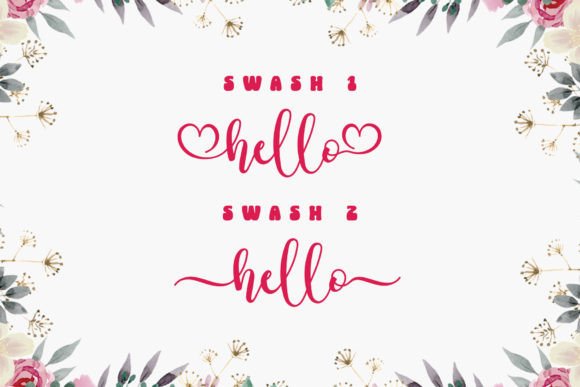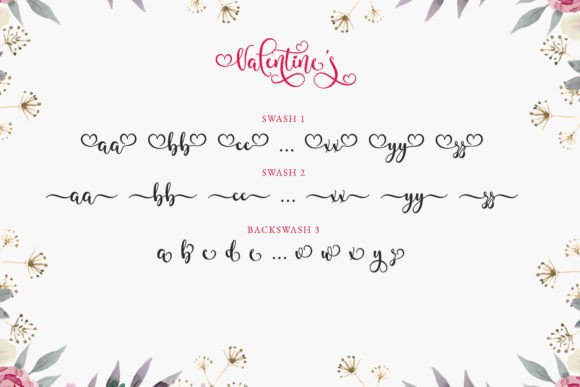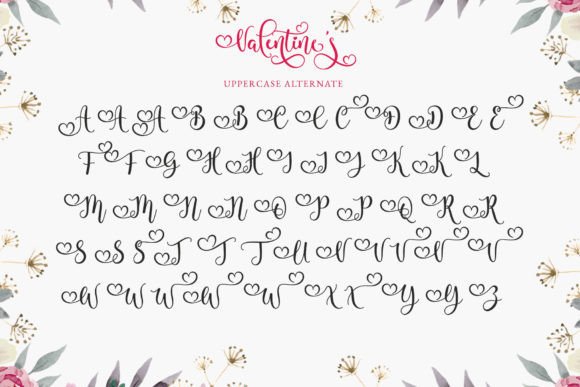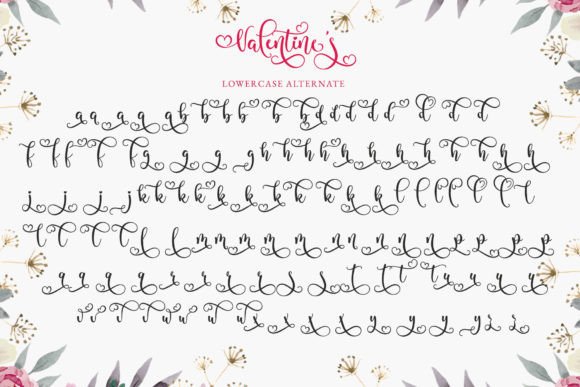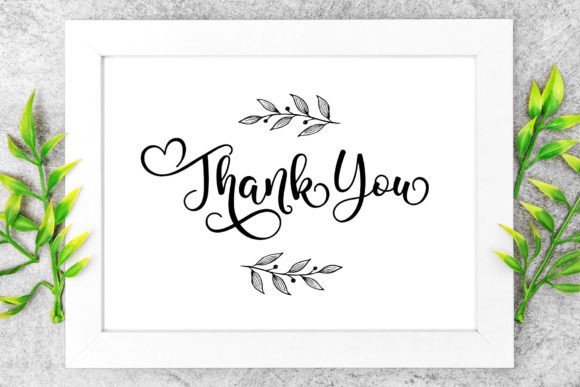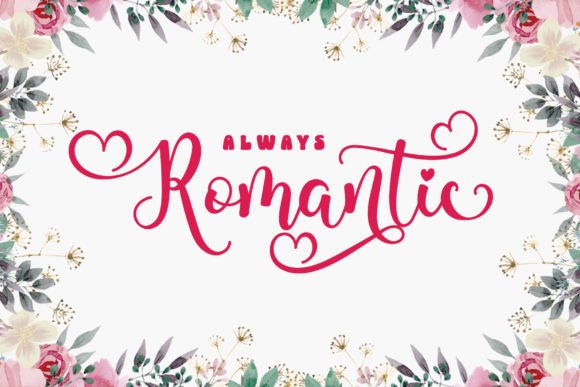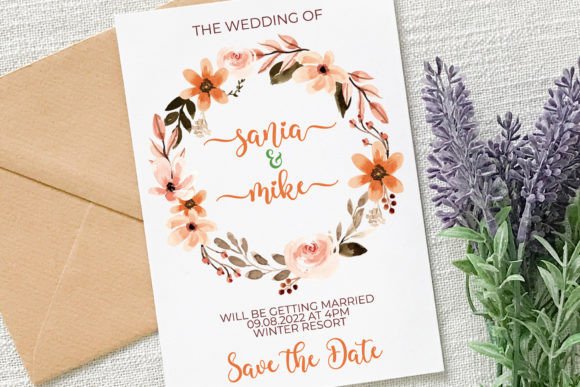
What Is Valentines Font?
Valentines Font is a chic bouncy script designed to bring a romantic and playful feel to your creative projects. Each letter features smooth curves and dynamic movement that create a fresh, elegant look. Because of its stylish character, this font is perfect for designs that need a sweet, handcrafted touch.
You will see how easily Valentines adds joy and sophistication to any project.
Valentines is a versatile font you can apply to many design ideas. For example, it’s perfect for Valentine’s Day projects. Whether you’re creating cards or gifts, the script style makes every detail feel personal and heartfelt.
In addition, it works beautifully for wedding invitations. Its romantic flow adds elegance and charm to every word.
You can also use it for farmhouse signs and home decor. The bouncy strokes bring a warm, welcoming feel that looks great on prints and wall art.
When you design quotes or social media graphics, Valentines delivers a playful, feminine tone that captures attention.
Moreover, it’s great for product packaging, labels, and branding. Your designs will look unique and polished with this chic script.
Why Should You Choose Valentines Font?
There are plenty of reasons to consider Valentines for your next design. First, it’s easy to read even with its bouncy, decorative style. Whether you use large headlines or small details, every letter remains clear and stylish.
Also, Valentines pairs beautifully with clean serif or sans-serif fonts. This helps you create balanced layouts effortlessly.
Because it’s fully PUA encoded, you can access all glyphs, swashes, and alternates without extra tools. Customizing your text becomes fast and smooth.
Designers appreciate that it looks polished out of the box, saving time while delivering professional results.
Valentines Font adds charm and personality to every project. For example, when you want your designs to feel romantic and inviting, this font makes it simple.
Even minimalist layouts look more engaging with Valentines’ flowing, lively strokes. Whether you create wedding stationery, cards, or social content, your work will stand out.
Using a premium bouncy script also shows your attention to detail and commitment to quality. This builds trust and makes your designs more memorable.
Valentines Font is more than just a typeface—it’s a creative tool that helps you share ideas with beauty and heart. From wedding invitations and Valentine’s Day cards to farmhouse decor and product labels, this font adapts easily and leaves a lasting impression.